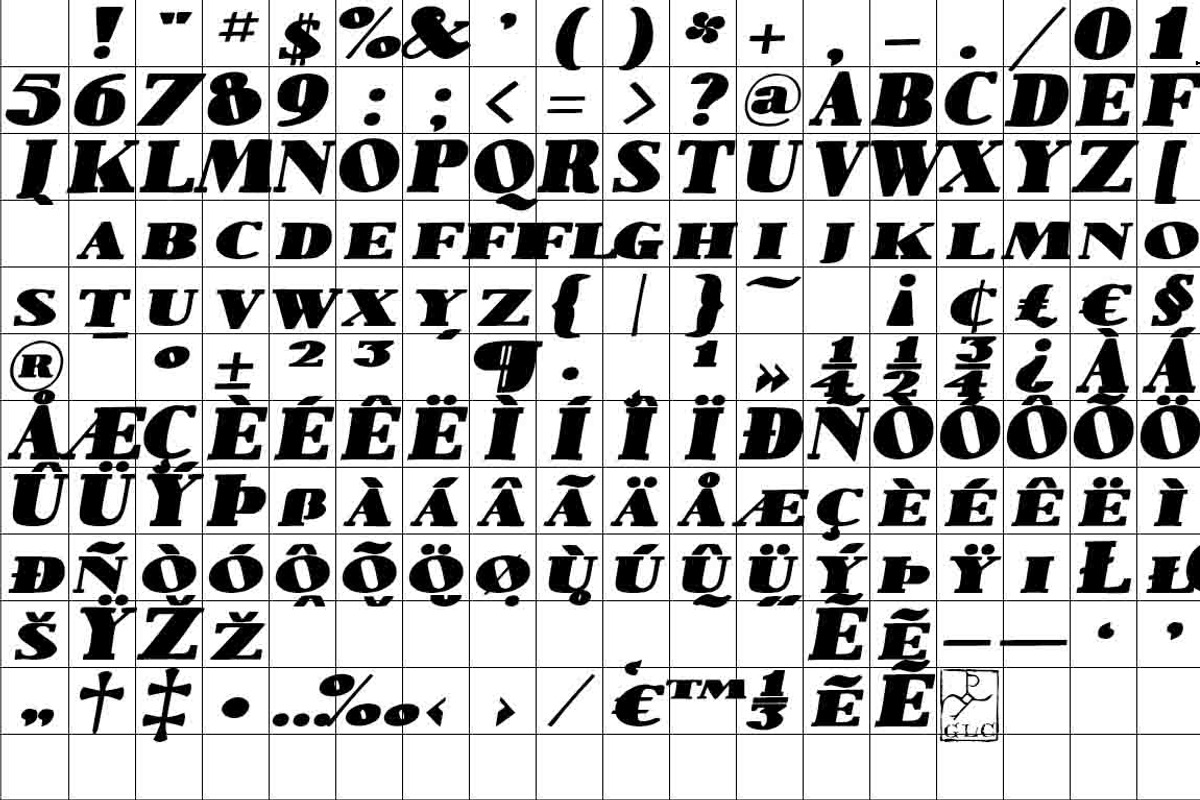
1890 Notice Set
We have created this family ( Normal, Italic, Large Normal, Large Italic ) inspired from the hand-drawn letters used from the late 1800's until beginning of 1900's for notices, advertisings, posters but also early comic's titles. It is a hand made font, with little imperfections who give it its special poetic note. It can be used together with our "1906 French News", "1906 Titrage" and "1820 Modern".